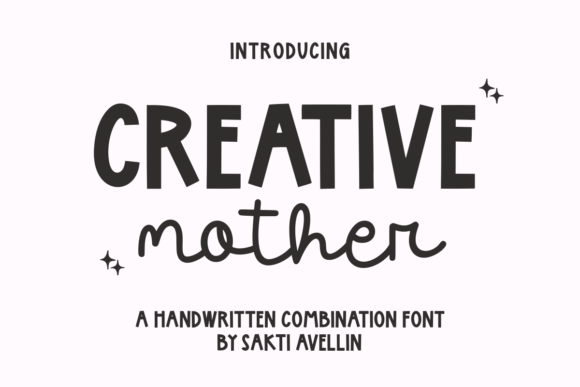
Creative Mother Font: Elevate Your Design with a Touch of Elegance
In the realm of typography, a well-crafted font can make all the difference in elevating your design from ordinary to extraordinary. Introducing Creative Mother, an enchanting blend of fonts that perfectly captures the essence of charm and sophistication. This versatile font artfully unites a handmade script in lower case letters with the upper case counterparts, creating an irresistible allure that is sure to captivate your audience.
Unique Characteristics of Creative Mother Font
- Handmade Script: The lower case letters in Creative Mother boast a beautiful, handmade script that exudes warmth and personality.
- Upper Case Counterparts: The upper case letters, with their sleek and modern design, perfectly complement the lower case script, creating a stunning visual contrast.
- Versatility: Creative Mother font is designed to be versatile, making it suitable for a diverse range of applications, from crafts and apparel to merchandise and packaging.
Exploring the Diverse Applications of Creative Mother Font
One of the standout features of Creative Mother font is its adaptability. Whether you’re a designer, crafty DIY enthusiast, or entrepreneur looking to create a brand identity, this font can help you achieve your goals. Here are some of the many ways you can use Creative Mother font:
- Crafts: Add a touch of elegance to your handmade crafts, such as journals, cards, and gift tags.
- Apparel: Create stunning designs for t-shirts, hoodies, and other clothing items that are sure to turn heads.
- Merchandise: Elevate your merchandise, including mugs, water bottles, and phone cases, with a chic and sophisticated font.
- Packaging: Use Creative Mother font to add a touch of luxury to your product packaging, making it stand out on store shelves.
Design Tips for Using Creative Mother Font
To get the most out of Creative Mother font, here are some design tips to keep in mind:
- Mix and Match: Experiment with different font sizes, styles, and colors to create visually appealing combinations.
- Balance: Balance the handmade script with more modern design elements to create a harmonious design.
- Contrast: Use contrasting colors and textures to make your design pop.
The Benefits of Using Creative Mother Font
So why choose Creative Mother font for your design needs? Here are just a few benefits:
- Unique Identity: Stand out from the crowd with a font that is both elegant and distinctive.
- Time-Saving: With its versatility and adaptability, Creative Mother font can save you time and effort in finding the perfect font for your project.
- Ease of Use: The font is easy to read and works well in a variety of contexts, making it a joy to work with.
Finding Inspiration with Creative Mother Font
Whether you’re a seasoned designer or just starting out, Creative Mother font is sure to inspire you to create something amazing. Here are some ways to find inspiration:
- Browse Design Communities: Explore online design communities, such as Behance and Dribbble, to see how other designers are using Creative Mother font.
- Experiment with Different Styles: Try out different font styles, colors, and combinations to discover new and exciting design possibilities.
- Take on a New Project: Challenge yourself to create something entirely new and original using Creative Mother font.
For those interested in the technical aspects of Creative Mother font, here are some key details:
- Font Type: Creative Mother font is a digital font designed for use on a variety of platforms.
In conclusion, Creative Mother font is a versatile and elegant font that can elevate your design to new heights. With its unique blend of handmade script and modern design, it’s perfect for a wide range of applications, from crafts and apparel to merchandise and packaging. Whether you’re a designer, DIY enthusiast, or entrepreneur, Creative Mother font is sure to inspire you to create something amazing.